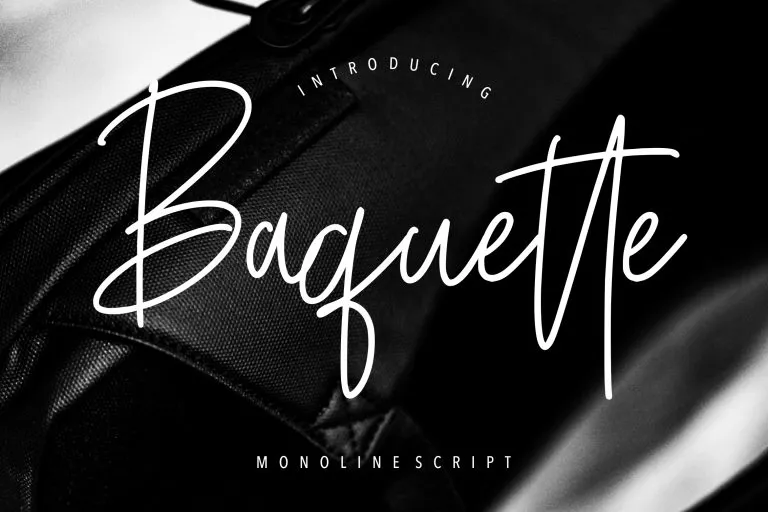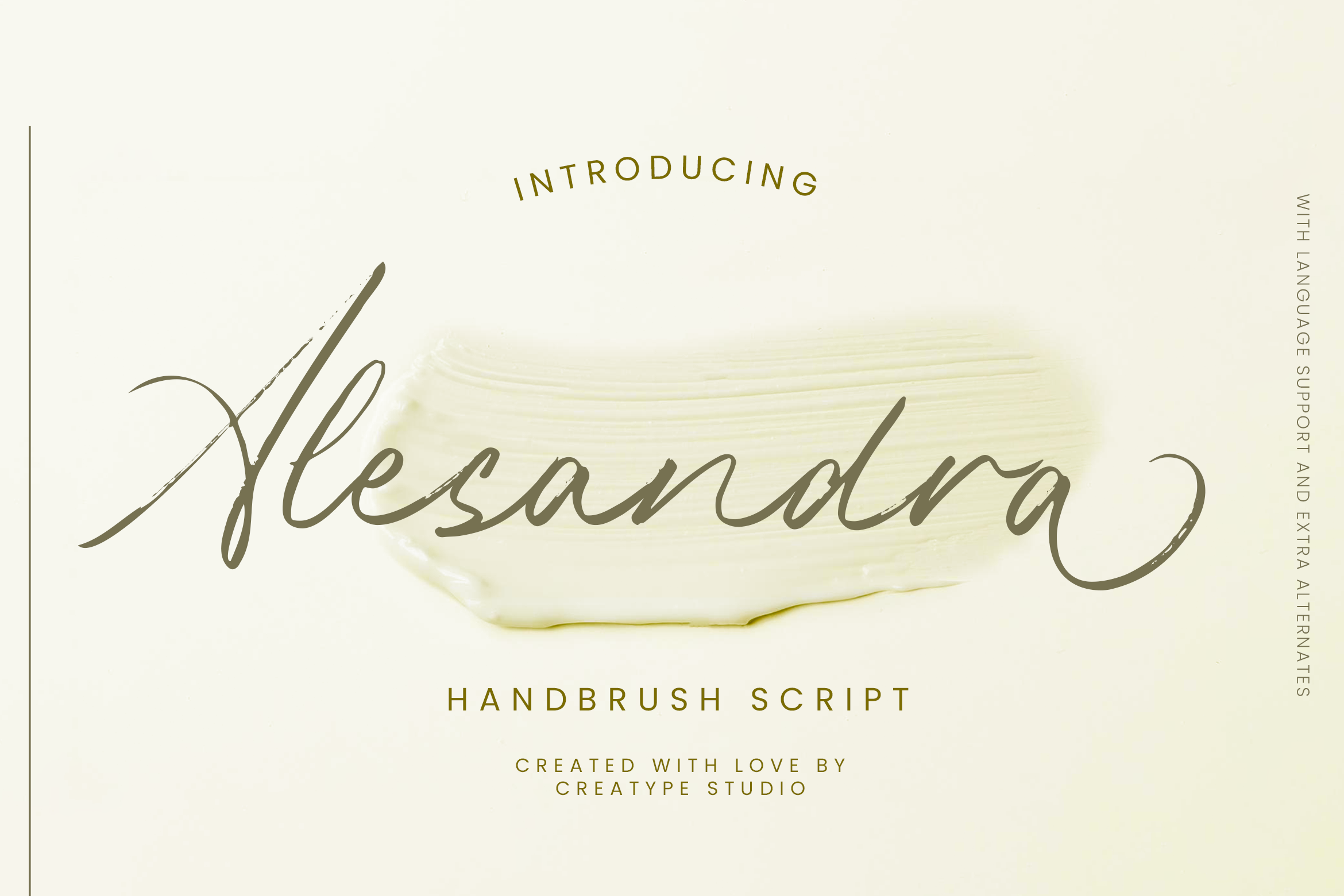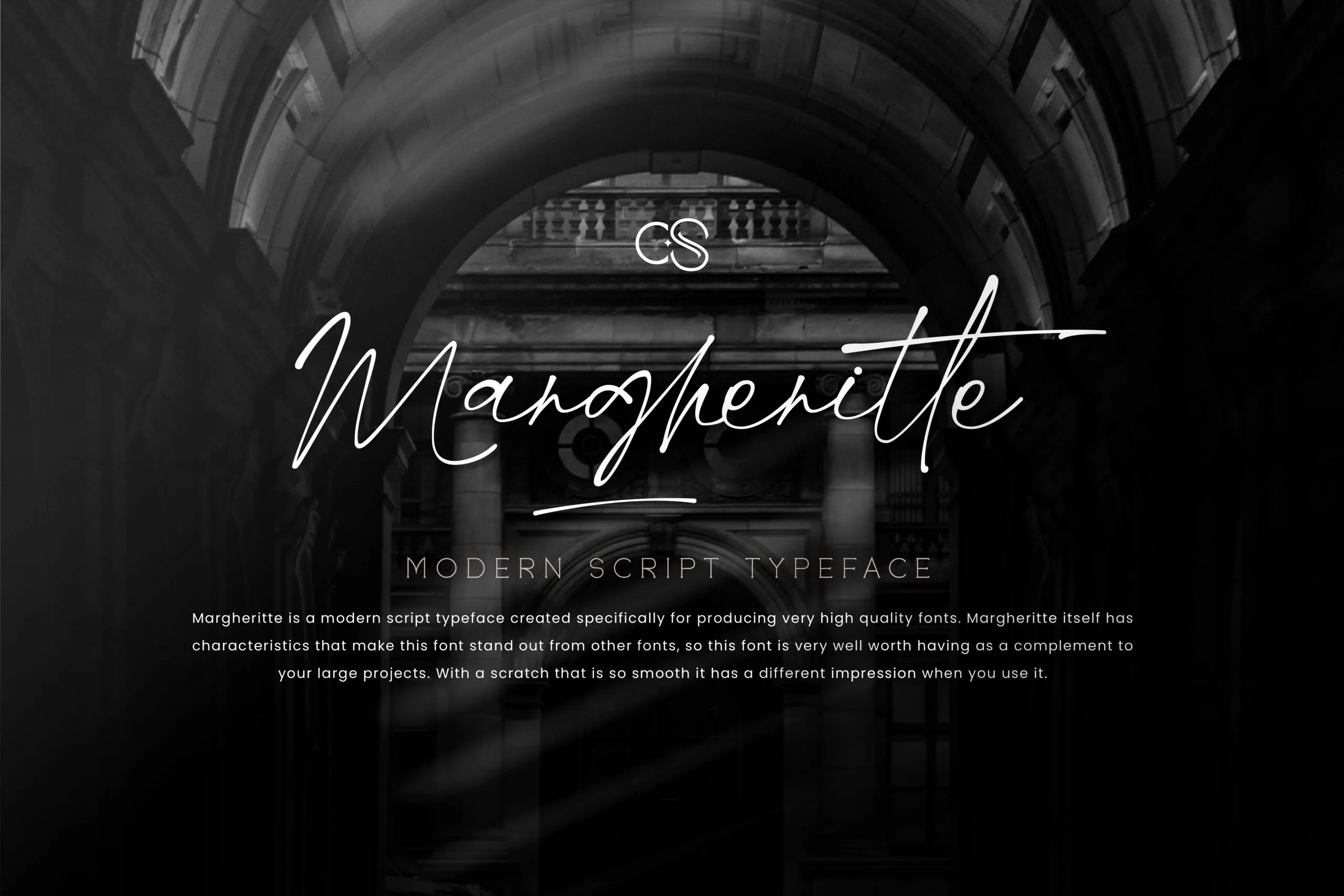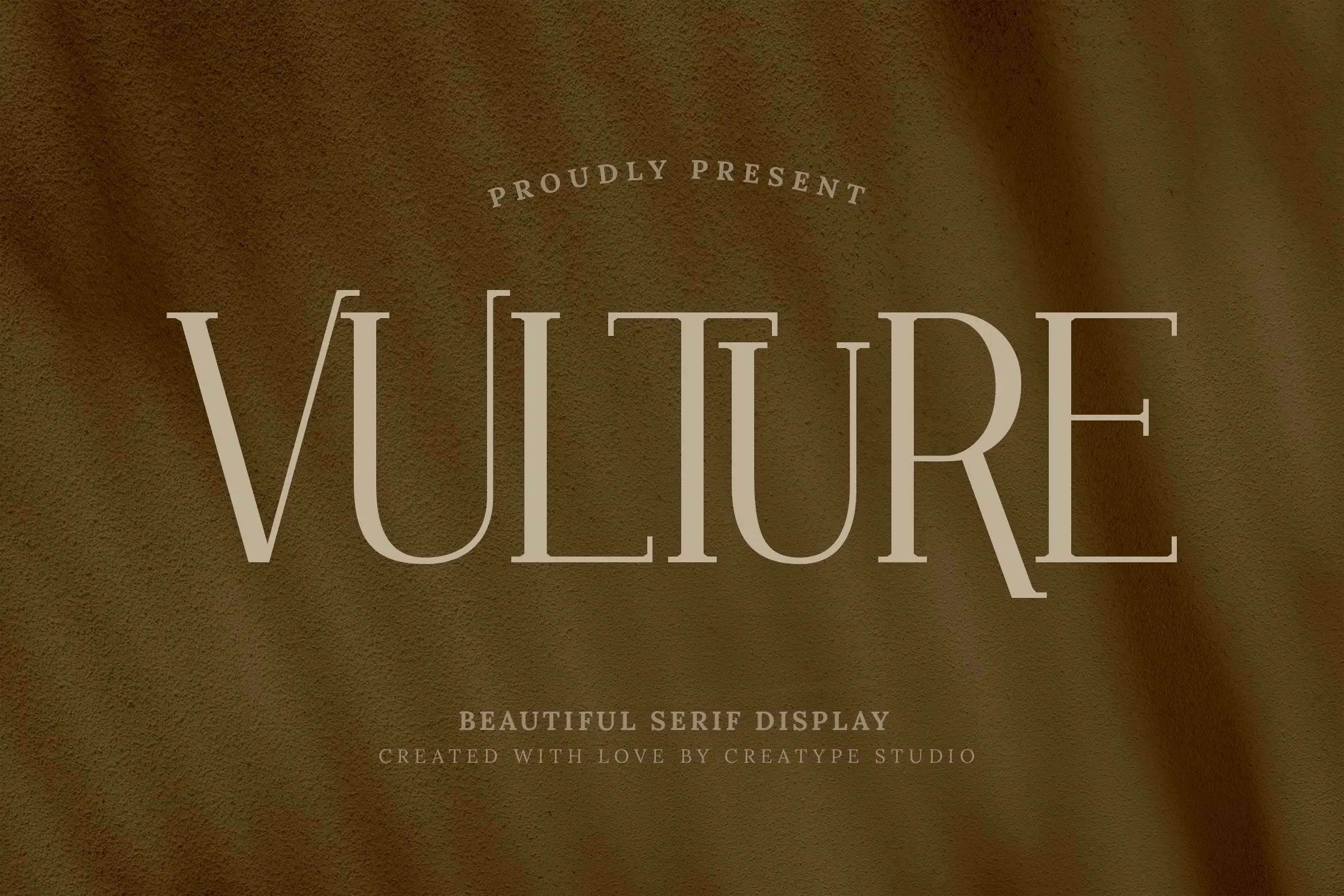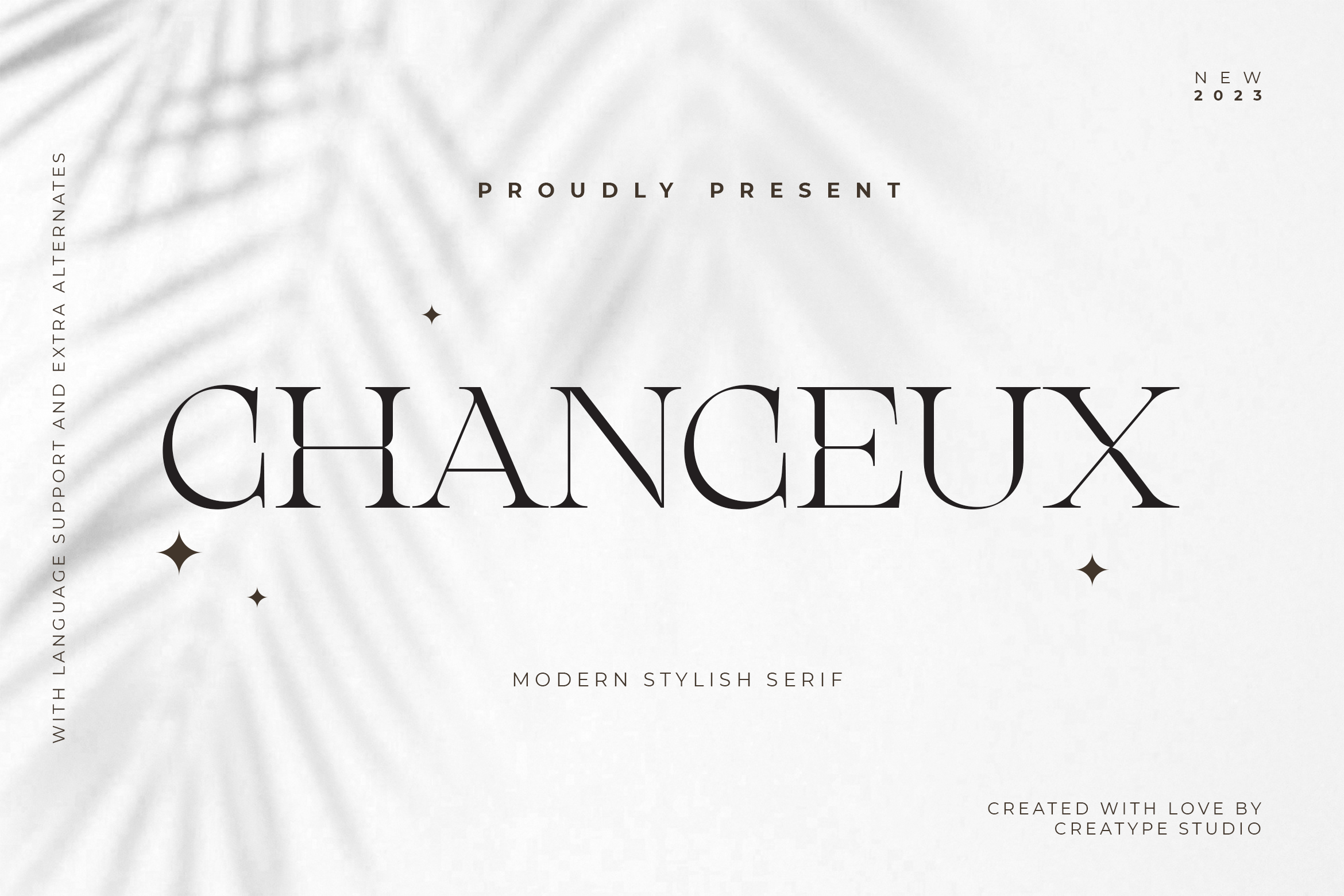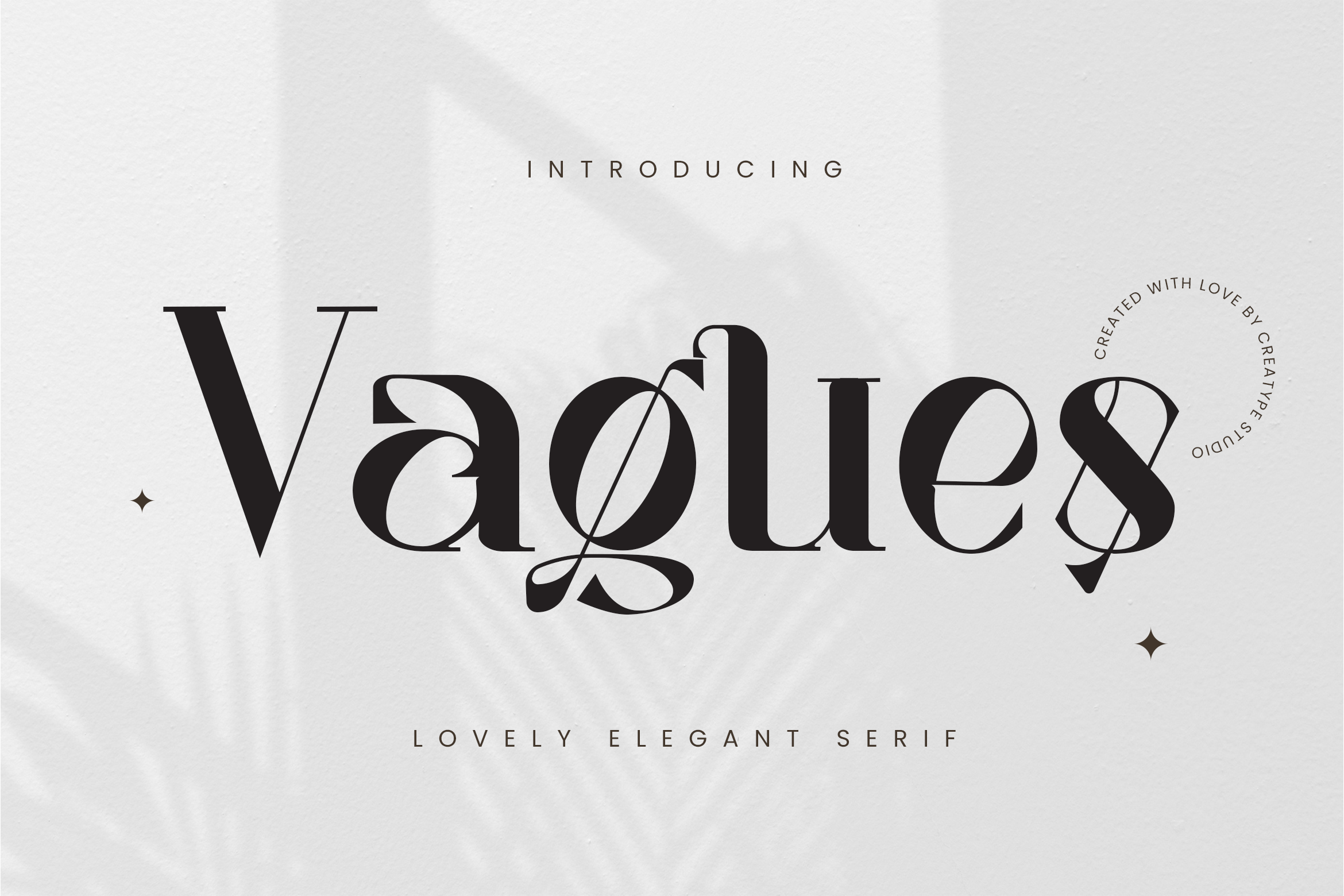
17 Elegant Fonts for Luxury Lawyer Branding
Fonts for Luxury Lawyer Branding
In the legal world, how a firm presents itself significantly affects client perception. Research in Corporate Reputation Review shows that typography influences credibility, serving as a key element in building a strong brand. For firms aiming to stand out, using fonts for luxury lawyer branding can help establish a strong impression.
This article highlights 17 fonts from Creatype Studio that combine elegance with professionalism. Let’s uncover what they are by going through the list.
Key takeaways:
• Fonts shape how law firms are perceived, influencing trust and client confidence.
• Luxury-inspired fonts elevate branding by adding elegance and professionalism.
Selecting Fonts for Luxury Lawyer Branding
Typography serves as the cornerstone of a compelling visual identity for a high-end law firm. It instantly communicates credibility, trust, and elite expertise before a single word is even read. Below is the list of fonts we’ve selected to build a sophisticated and authoritative identity. Check them out!
1. Astragon
Astragon is a contemporary serif typeface designed to convey professionalism and enduring credibility. Its balanced structure is suitable for prominent applications such as firm nomenclature, formal documents, and distinguished headings.
2. Vulture
Vulture is a serif display font with a clean, professional style that balances modern design with strong readability. Its versatility makes it well-suited for law firm branding across logos, websites, and formal documents.
3. Koolegant
With its modern serif style, Koolegant offers both clarity and understated elegance. Its flexibility makes it appropriate for applications such as websites, reports, and firm communications.
4. Chanceux
Chanceux offers a clear serif design with a contemporary edge, ensuring strong readability. Law firms can apply it consistently across their branding, from business cards to online presence.
5. Vagues
Law firms seeking a polished but approachable typeface may find Chanceux to be a strong fit. Its design supports readability while maintaining a professional tone across branding elements. This makes it one of the most practical fonts for luxury lawyer branding.
6. Renaisans
Renaisans, with its bold curves, offers a distinctive presence. Its dramatic yet readable style works across media, making it ideal for firms seeking confident but approachable branding.
7. Rosalina
Rosalina combines clean geometry with subtle details and consistent line weight. For law firms, it provides a professional, adaptable solution for branding and documents.
8. Montero
Montero offers a design that merges contemporary styling with a hint of traditional influence. This balance makes it suitable for firms seeking a modern look while maintaining professional readability.
9. Hamston
Law firms often face the challenge of appearing both established and forward-looking. Hamston addresses this by blending retro elements with a modern framework. Its ornamental details add distinction while keeping communication clear and professional.
10. Baquette
With its continuous strokes and elegant flow, Baquette offers the look of a carefully written script. Its design balances formality with a personalized touch, well-suited for materials where a professional yet approachable tone is desired.
11. Franchisca
11. Franchisca emphasizes precision through its consistent strokes and carefully shaped letterforms. The script style conveys refinement while remaining legible. These qualities make it effective for presenting information in a polished and trustworthy manner.
12. Bulgatti
Bulgatti shows that script fonts can be both elegant and easy to read. Its structure reflects careful attention to proportion, allowing it to remain versatile across different formats.
13. Alesandra
Alesandra delivers a script design that is both structured and adaptable. It can be used alongside other fonts or featured on its own, depending on the design purpose. For firms seeking fonts for luxury lawyer applications, this typeface helps maintain consistency across formal documents and promotional work.
14. Hallimun Signature
With strokes that echo natural handwriting, Hallimun Signature adds a distinct yet professional presence to visual communication. It adapts seamlessly to branding and formal design projects.
15. Margheritte